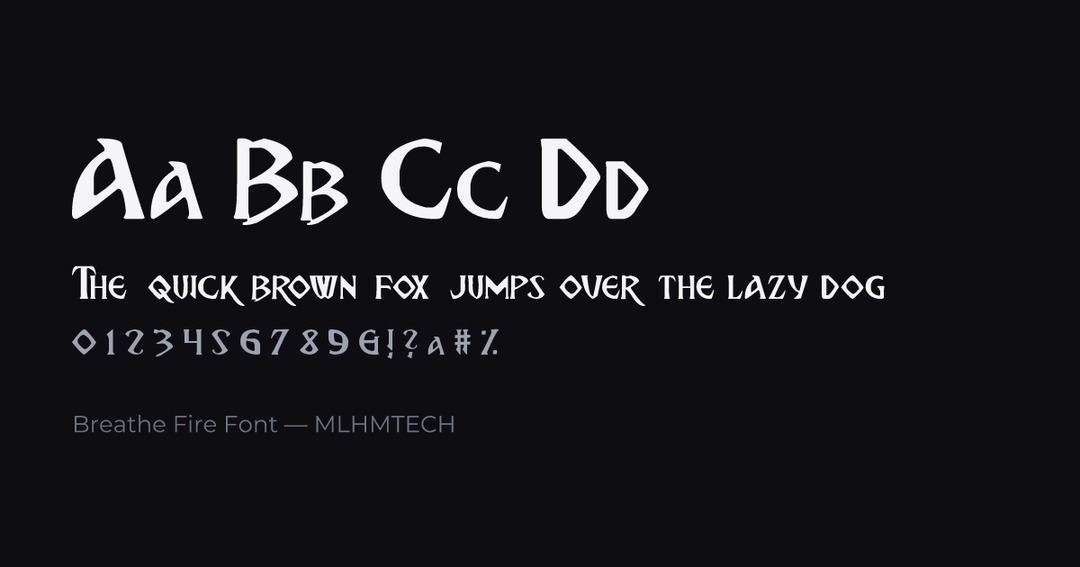
Breathe Fire Font
Breathe Fire is a bold display font with a fiery edge, ideal for eye-catching headlines and branding.
Breathe Fire is a striking display font that commands attention. Its bold, confident strokes and sharp angles evoke a sense of power and intensity, making it perfect for projects that need a fiery impact.
Whether you're designing a logo, poster, or social media graphic, this font adds a dynamic and energetic feel. The included OTF file ensures compatibility with most design software, and its clean curves make it versatile for both print and digital use.
Add a spark to your creative projects with Breathe Fire. Its unique character will set your designs apart and leave a lasting impression.